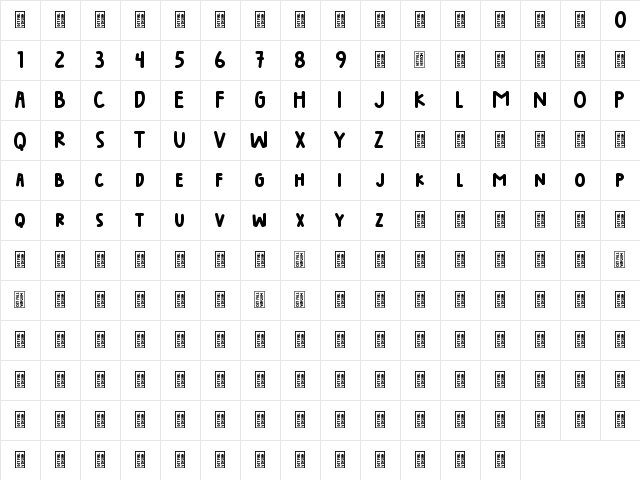
Brother DEMO Regular
| Designer | Trim Studio |
Design Context for Brother DEMO Typeface
Brother DEMO offers clean, dependable letterforms without strong stylistic allegiance, making it a practical choice for designers who need flexibility.
Pro Tip: Pair Brother DEMO with a font of contrasting weight or personality to build a more expressive typographic hierarchy.